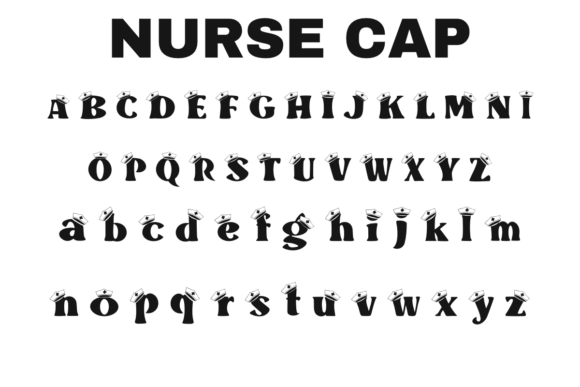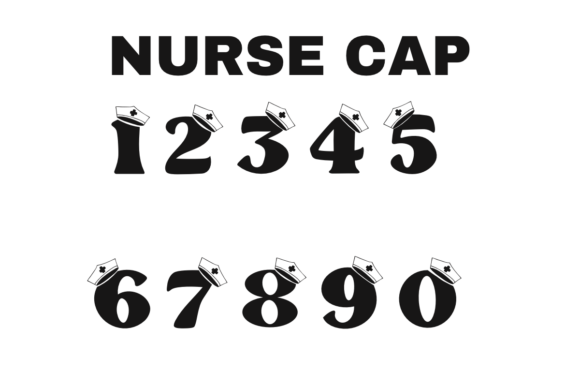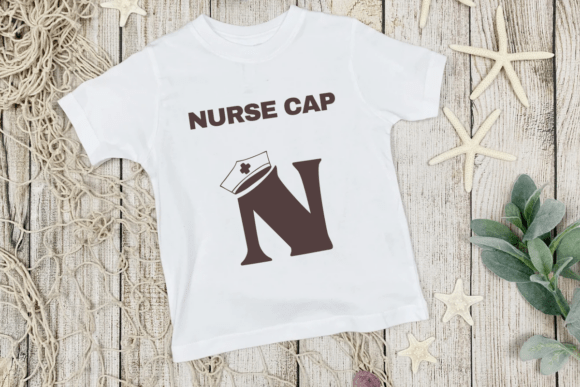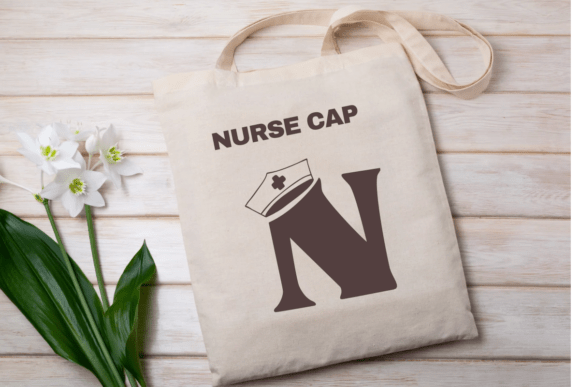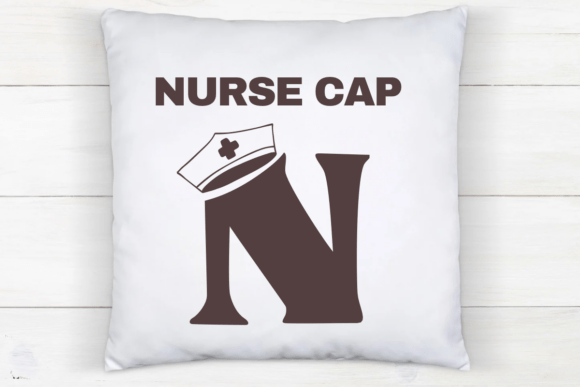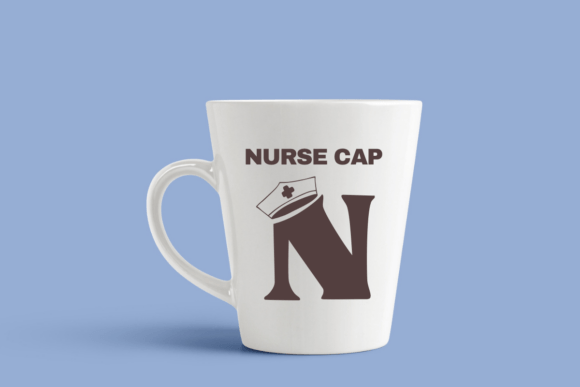
Introduction to Nurse Cap Font
As a designer, you’ve probably had those moments where you stumble upon the perfect font to elevate your creative project. It’s like finding the missing puzzle piece that brings your entire design together. For me, that moment came when I discovered the Nurse Cap Font. This charming decorative font is a game-changer for any design enthusiast looking to add a touch of whimsy to their work.
With its unique style and high-quality design, Nurse Cap Font is a valuable resource for designers. Whether you’re working on a free download project or creating content for social media, this font is sure to bring a smile to your audience’s faces. Its transparent background makes it perfect for overlaying on images or using as a standalone element in your designs.
But what sets Nurse Cap Font apart is its versatility. Use it for taking notes, writing a diary, or making greeting cards – the possibilities are endless! And with its free download availability, you can experiment with this font without breaking the bank. In this article, we’ll dive deeper into the world of Nurse Cap Font and explore its many uses and benefits.
Key Features of Nurse Cap Font
- Unique and elegant design inspired by traditional nurse caps
Honest Review: Nurse Cap Font
I recently stumbled upon the Nurse Cap Font while searching for a design resource for a creative project, and I must say I’m impressed. This free download offers a high-quality, vintage-inspired font that’s perfect for adding a touch of nostalgia to your designs.
- Beautifully crafted vintage-inspired design
- High-quality font with crisp lines and detailed texture
- Transparent background allows for seamless integration with other design elements
- Limited character set, may not be suitable for extensive text-based projects
- No bold or italic variations available
Overall, I’m very pleased with the Nurse Cap Font. It’s a great addition to any designer’s toolkit, and its vintage charm makes it perfect for a wide range of creative projects. While it has some limitations, the font’s quality and unique design make it well worth downloading.
Nurse Cap Font
Designing with Nurse Cap Font in Canva
Tips for Getting the Most Out of Nurse Cap Font
Experiment with different font sizes, colors, and alignments to create a unique design. Use the Nurse Cap Font in combination with other design resources to add depth and visual interest to your creative project. Take advantage of the high-quality design and transparent background to create a professional-looking design.
Common Use Cases for Nurse Cap Font
The Nurse Cap Font is ideal for healthcare-related designs, such as brochures, posters, and business cards. It can also be used in educational projects, such as presentations and infographics. With its high-quality design and transparent background, the Nurse Cap Font is a versatile resource for any creative project.
Nurse Cap Font Alternatives